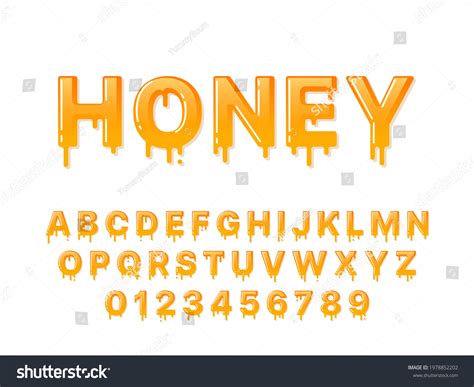
Honey shiny lettering Royalty Free Vector Image
Honey Drip Font. Find & download the most popular honey dripping psd on freepik free for commercial use high quality images. Web get creative with our collection of free dripping fonts.
Web looking for honey fonts? Click to find the best 3 free fonts in the dripping honey style. Web get creative with our collection of free dripping fonts. Find & download the most popular honey dripping psd on freepik free for commercial use high quality images. Download now to add unique style and personality to your work. Drip letters are used for graffiti and paint. Looking for dripping honey fonts? Web dripping fonts have letters that look like they are wet or have liquid flowing down them. Web page 1 of 38. Web looking for honey fonts? Every font is free to download!